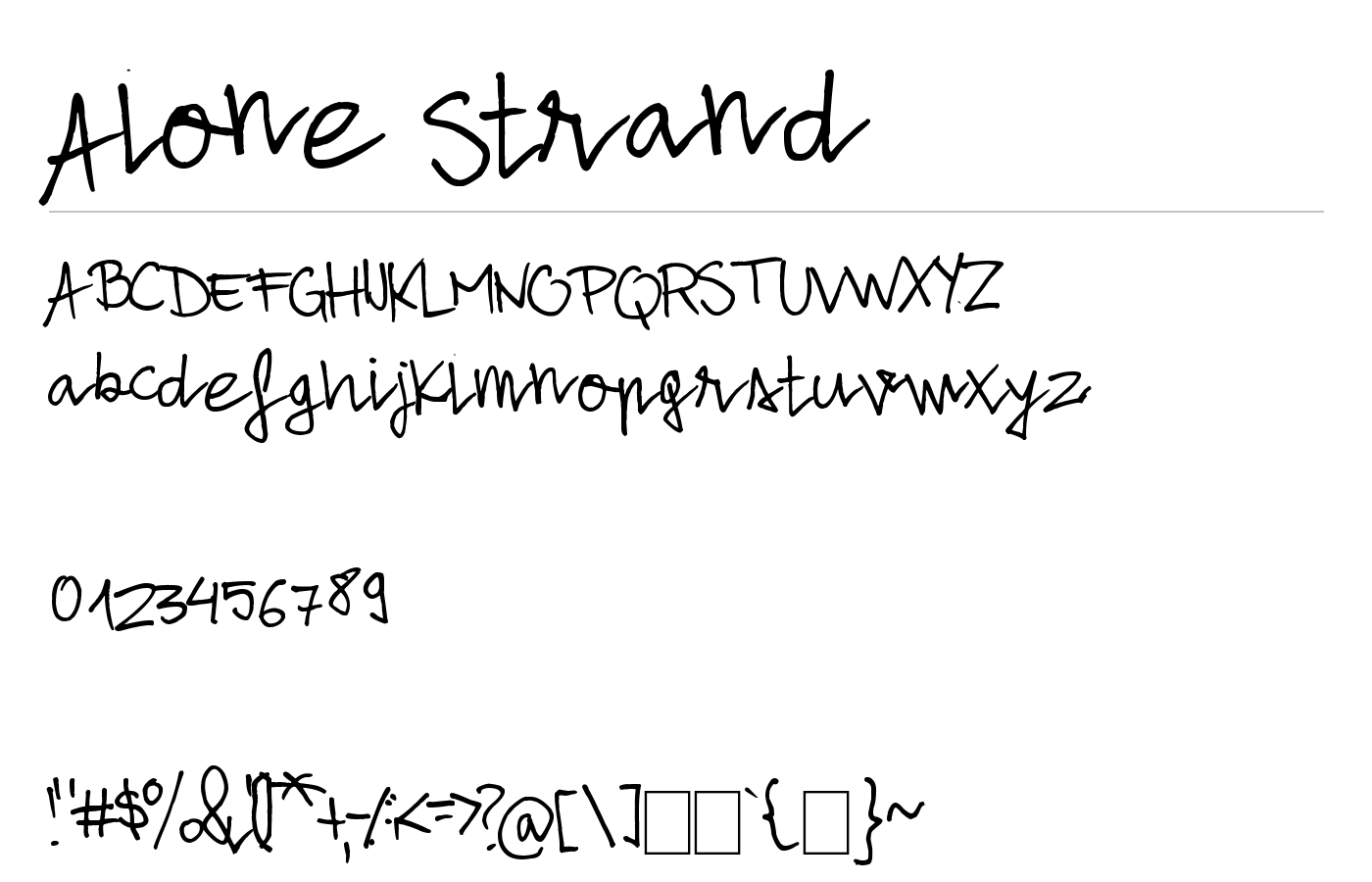
Alone Strand is a casual, handwritten-style font featuring irregular, slightly jagged strokes that give it a lively and personal feel. Its tall, narrow letterforms with uneven baseline and playful curves create an informal yet distinctive look, perfect for creative projects that seek an authentic and approachable vibe. This font works well for logos, invitations, and artistic designs where a unique, human touch is desired.
Alone Strand Font
About Alone Strand Font
| Font family | Alone Strand Font |
| Designer | Leonard Posavec |